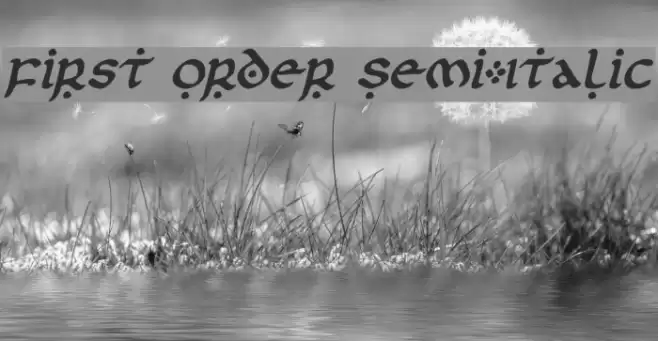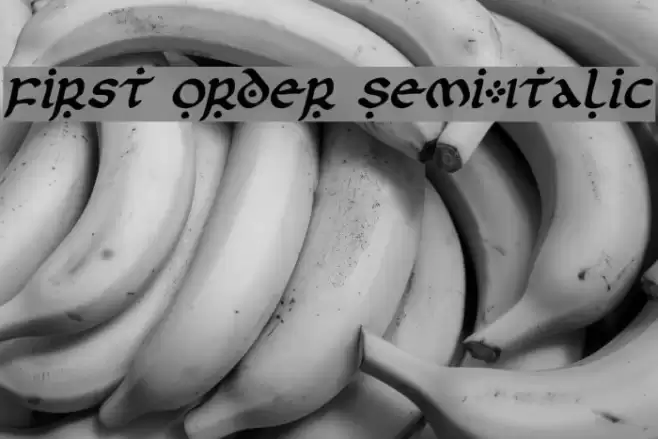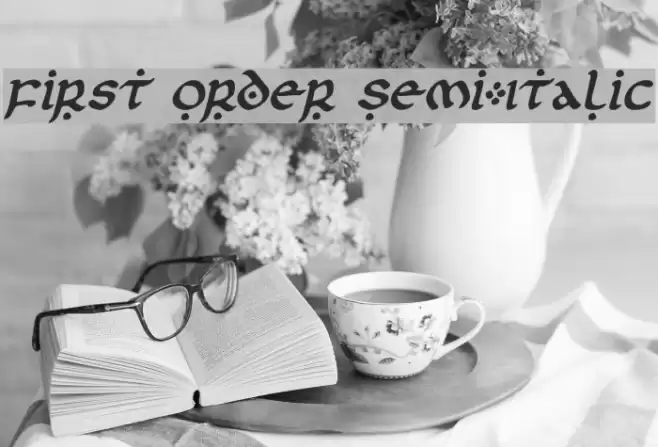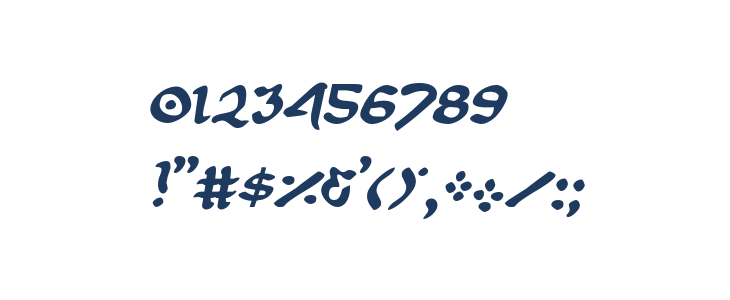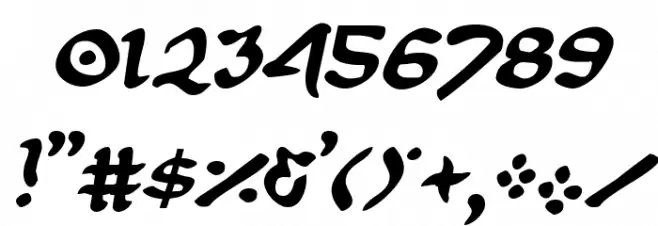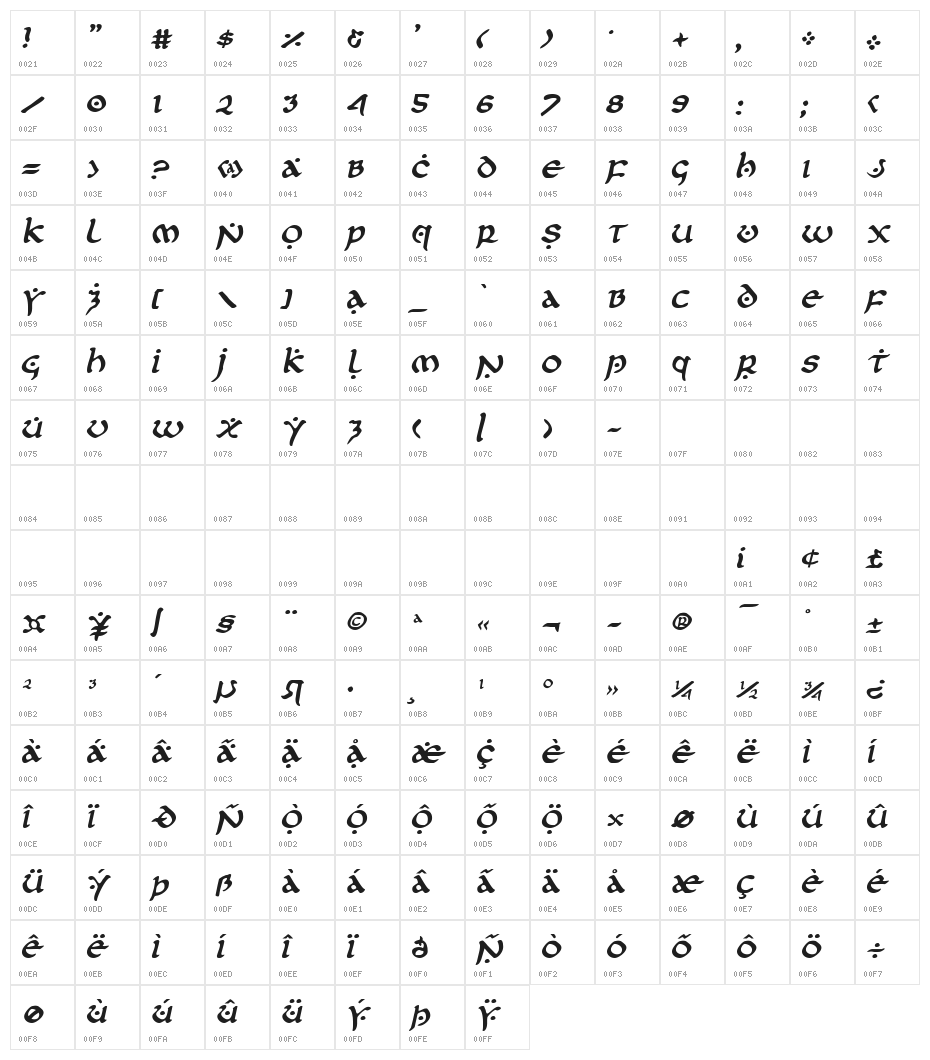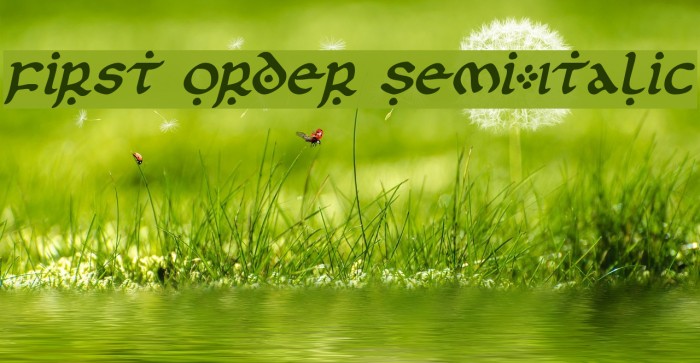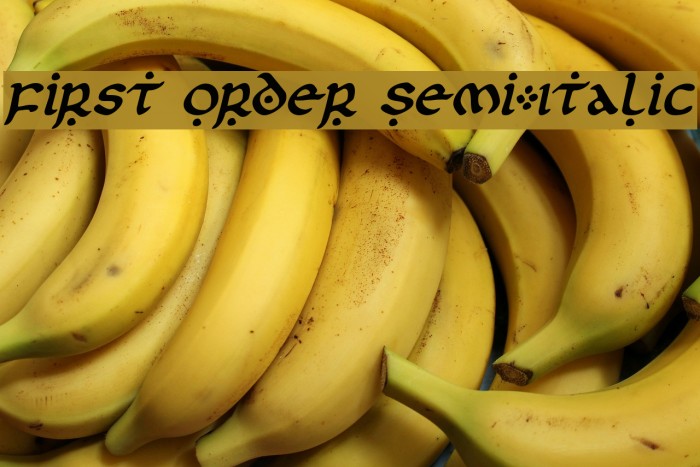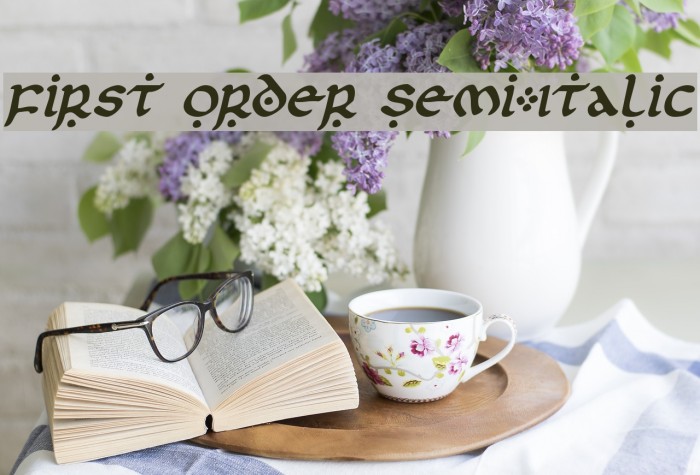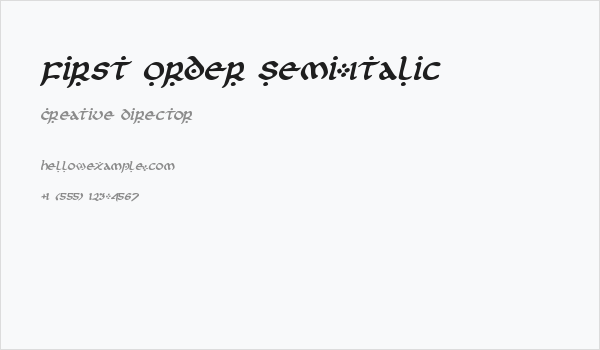
First Order Semi-Italic Font
First Order Semi-Italic Description
This font features a unique blend of semi-italic and calligraphic styles, characterized by its flowing, cursive-like strokes and distinctive serifs. The uppercase letters exhibit a bold presence with a slight slant, while the lowercase letters maintain a consistent rhythm, enhancing readability. The numerals are well-proportioned, complementing the overall aesthetic. Special characters are creatively designed, adding to the font's decorative appeal. The font's artistic flair makes it suitable for creative projects that require a touch of elegance and sophistication.
A semi-italic, calligraphic font with flowing strokes and decorative serifs from Uncategorized fonts.
- Proposed Projects: Ideal for wedding invitations, greeting cards, logo design, and artistic posters.
- Use Case: Logos, Invitations, Artistic Projects